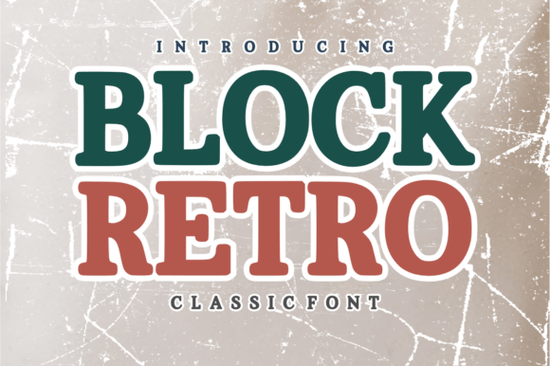
If you are looking to add a nostalgic, mid-century vibe to your next project, the Block Retro font is a fantastic choice. This display typeface captures the bold, confident spirit of vintage advertising, making it highly versatile for print-on-demand sellers and small business owners. Whether you are designing a varsity-style t-shirt or a classic cafe sign, this typeface gives your work an authentic vintage cool factor without sacrificing readability.
What makes this typeface stand out for vintage projects?
The design relies on thick, rounded slabs paired with a subtle outline effect. This combination creates a strong visual presence that works beautifully for classic movie titles or retro cafe branding. Because the geometry is so well-balanced, you do not have to worry about the letters feeling cramped or hard to read from a distance. It acts as a solid anchor for vintage badge logos and bold website headers that need a touch of heritage. The clean lines ensure that even when you scale the text down for a small clothing tag, the message remains perfectly clear to your audience.
How should I pair it with other typography?
When working with heavy display styles, finding the right secondary typeface is crucial for maintaining a clean layout. You can create a sophisticated high-low contrast by pairing it with a delicate, flowing script. For example, if you are designing a retro bakery menu, you might use a thick, playful typeface for the main headers and a light script for the descriptions. Alternatively, keeping it purely classic with a clean, complementary serif works just as well for formal heritage branding. If you need a more academic or collegiate feel for a school project, mixing it with something like the academic style lettering can give your layout a cohesive, traditional look.
What are the best use cases for this style?
This style is incredibly versatile across different mediums. Here are a few ways creative professionals and hobbyists are using it:
- Varsity-style apparel: Perfect for high school spirit wear, local sports clubs, or retro streetwear brands.
- Cafe and restaurant branding: Looks fantastic on outdoor signage, menu boards, and coffee cup sleeves.
- Podcast covers and YouTube thumbnails: The bold outlines ensure your text stands out even on small mobile screens.
- Wedding invitations: Great for rustic or vintage-themed wedding suites, especially when paired with floral illustrations.
Try dropping the typeface into a mockup template today to see how the thick slabs interact with your background textures.